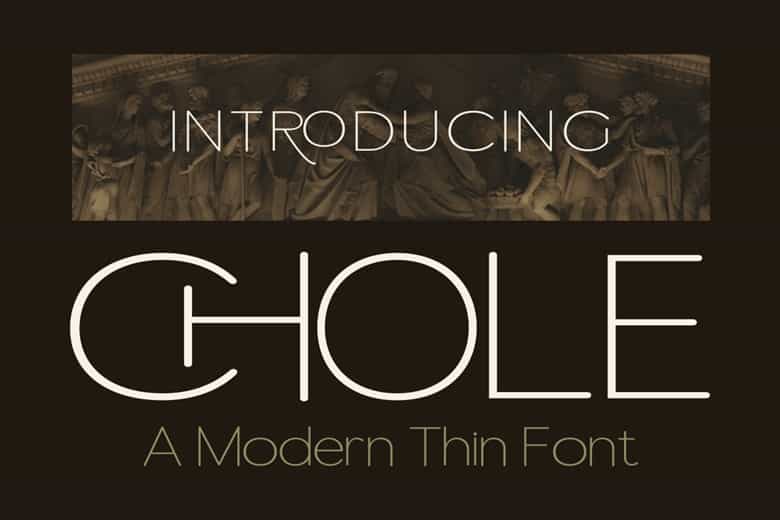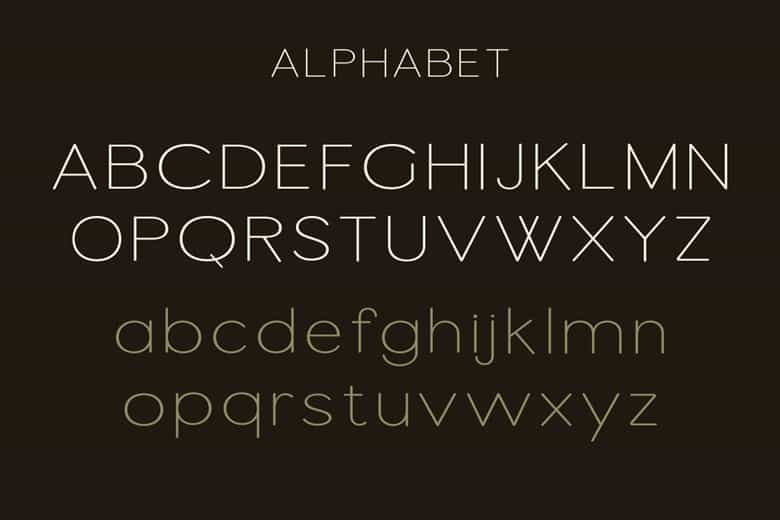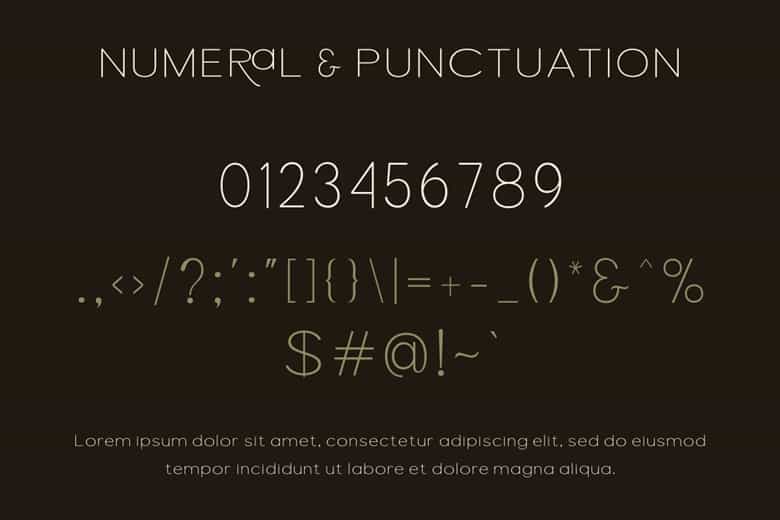
Let us introduce you to CHOLE, the font you need for a stylish look. CHOLE is a very slim and clean sans serif font that makes for a great design element without compromising on modernity. These designs give a new and simple look to your projects which you can use in a variety of designs.